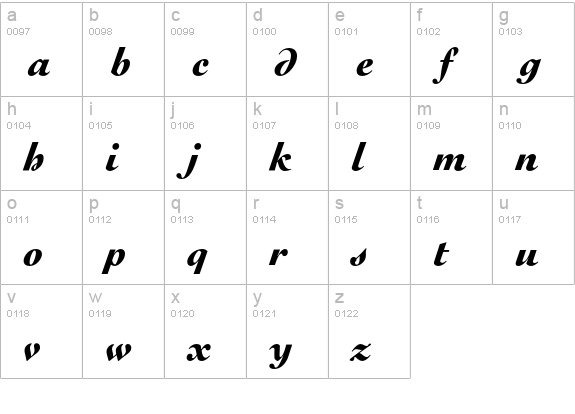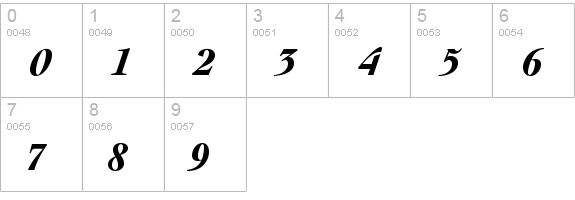
Engravers' Oldstyle 205 Black Italic is a maximum-weight, dramatic, italic variant in the Engravers' typeface family \xE2\x80\x94 well suited to maximum-impact headlines, posters, and packaging.
Engravers' Oldstyle 205 Black Italic font exudes elegance and sophistication with its sleek and timeless design. The sharp serifs and flowing italic style make it perfect for adding a touch of class to any project. Whether you're creating wedding invitations, business cards, or elegant branding materials, this font is sure to make a statement. And the best part? Engravers' Oldstyle 205 Black Italic font is available for free download at FontsMarket.com. Now you can elevate your designs without breaking the bank. Don't miss out on this opportunity to add a touch of refinement to your projects with this stunning font. Download it today and start creating beautiful and impactful designs with ease.